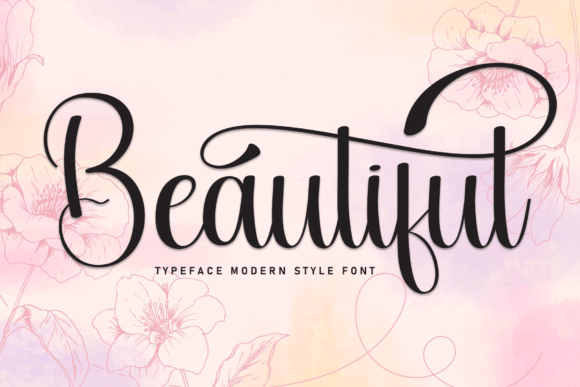
The Perfect Touch: Beautiful Font for Your Next Design
Have you ever been rummaging through your stash of papers and cards, searching for the perfect font to add a touch of whimsy to your design? I know I have! There’s something magical about finding that one font that instantly transports you to a world of creativity and possibility. For me, that font is Beautiful Font – a sweet and friendly handwritten font that’s guaranteed to put a smile on your face.
Beautiful Font is the perfect solution for designers looking to add a fun and playful touch to their designs. Whether you’re creating wedding invitations, cards, or any other design that needs a little extra love, this font is sure to deliver. With its cute and versatile style, Beautiful Font is a valuable addition to any designer’s toolkit.
So, what makes Beautiful Font so special? In short, it’s the perfect combination of friendliness, playfulness, and elegance – making it an ideal choice for any design project that needs a little extra magic.
Key Features of Beautiful Font
- Font Family: Beautiful Font is a unique, high-quality font family designed for use in various digital and print media.
- Character Set: Includes over 1,000 glyphs, covering a wide range of languages, including Latin, Cyrillic, and Greek alphabets.
- Unique Characteristics: Features a distinctive, elegant design with subtle flair and nuance, making it ideal for use in high-end branding, publishing, and advertising applications.
Designer Review: Beautiful Font
Beautiful Font is a visually stunning typeface that truly stands out from the crowd. Here’s what I love about it:
- ✨ Unique style: The font’s distinctive curves and lines create a captivating visual experience that’s hard to ignore.
- ✨ High legibility: Despite its creative flair, the font remains remarkably easy to read, making it suitable for a wide range of applications.
- ✨ Versatility: Beautiful Font works well in both digital and print formats, from website headers to business cards.
However, there are a few areas where Beautiful Font falls short:
- ⚠️ Limited language support: The font only includes a limited character set, which may be a concern for designers working with languages that require a broader range of characters.
- ⚠️ Not ideal for small text: While the font is highly legible at larger sizes, it can become difficult to read at smaller font sizes, which may limit its use in certain applications.
Overall, Beautiful Font is a bold and eye-catching typeface that’s sure to make a statement. While it may not be suitable for every project, it’s a great choice for designers looking to add some visual flair to their work. With a bit of careful planning and consideration, Beautiful Font can be a valuable addition to any design toolkit.
Beautiful Font is ideal for:
– Creating visually appealing social media posts and ads.
– Designing eye-catching flyers and brochures.
– Adding a touch of elegance to presentations and documents.
Alternatives to Beautiful Font for Designers
Playfair Display is a high-end serif font ideal for luxury branding, invitations, and high-end publications. It’s a perfect choice for creating an elegant and sophisticated look. Compared to Beautiful Font, Playfair Display has a more refined and classic feel, making it suitable for projects that require a touch of sophistication.
Great Vibes is a modern script font perfect for creating a fun and playful atmosphere. It’s ideal for branding, advertising, and social media campaigns that require a touch of whimsy. Compared to Beautiful Font, Great Vibes is more casual and relaxed, making it suitable for projects that require a friendly and approachable tone.